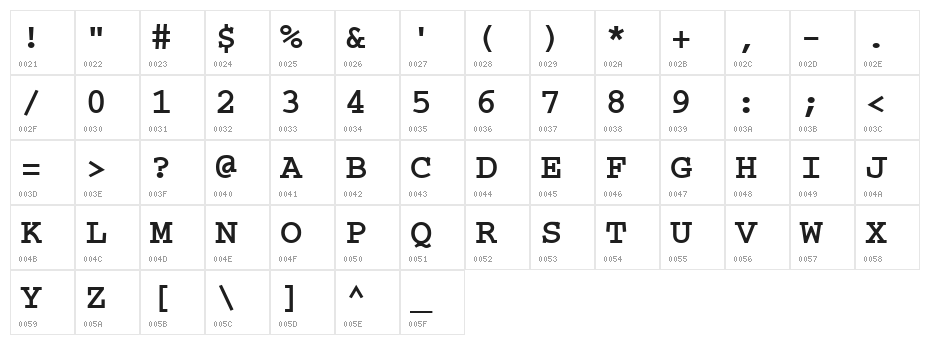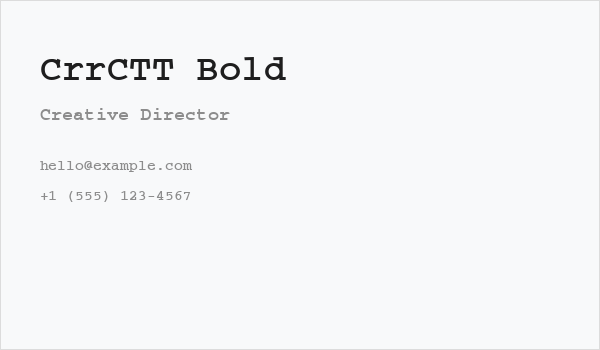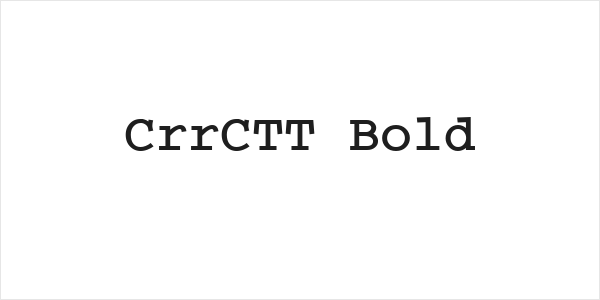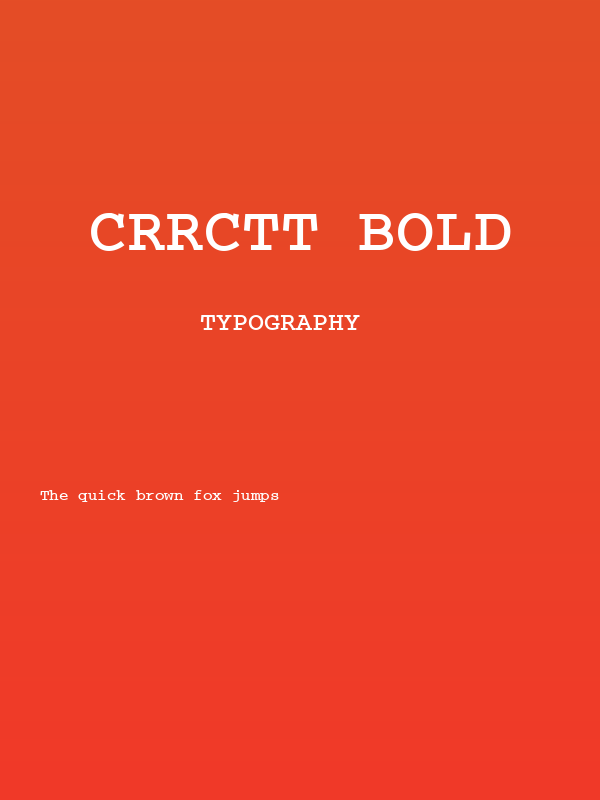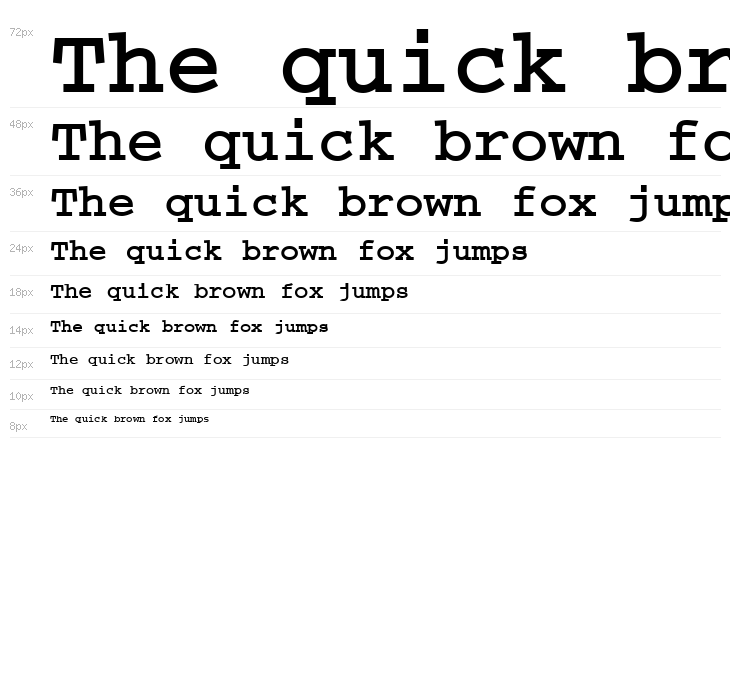
CrrCTT Bold Font
CrrCTT Bold Description
This font features a bold and robust slab serif design, characterized by thick, block-like serifs that give it a strong and authoritative presence. The uppercase letters are uniform in height, with a consistent stroke weight that enhances readability. The lowercase letters maintain a similar thickness, ensuring a cohesive look across different text sizes. Numbers are clear and distinct, with a slightly wider stance that aids in legibility. Special characters are well-integrated, maintaining the bold and structured aesthetic. This font's boldness and clarity make it suitable for impactful designs.
| Proposed Projects | Ideal for headlines, posters, branding materials, and any design requiring a strong visual impact. |